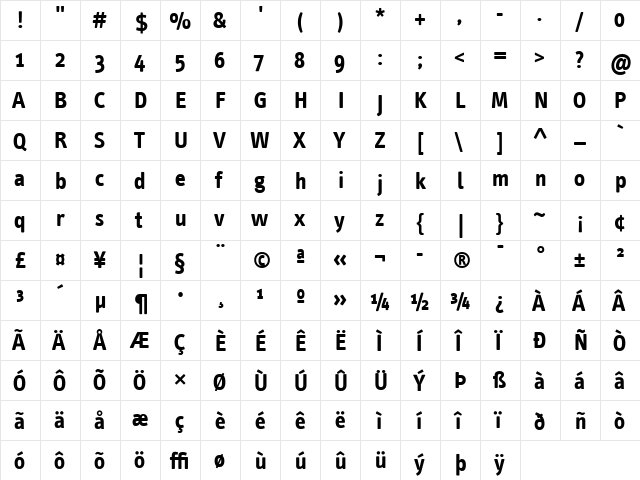
InfoText Bold
| Foundry | Erik Spiekermann, Ole Sch\ fer, . Published by FontShop International FontFont release |
Design Context for InfoText Typeface
InfoText offers clean, dependable letterforms without strong stylistic allegiance, making it a practical choice for designers who need flexibility. The heavy weight commands attention and anchors typographic hierarchies.